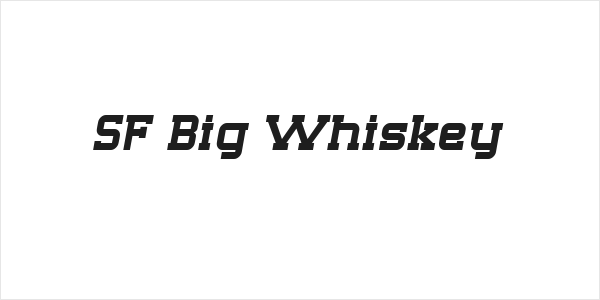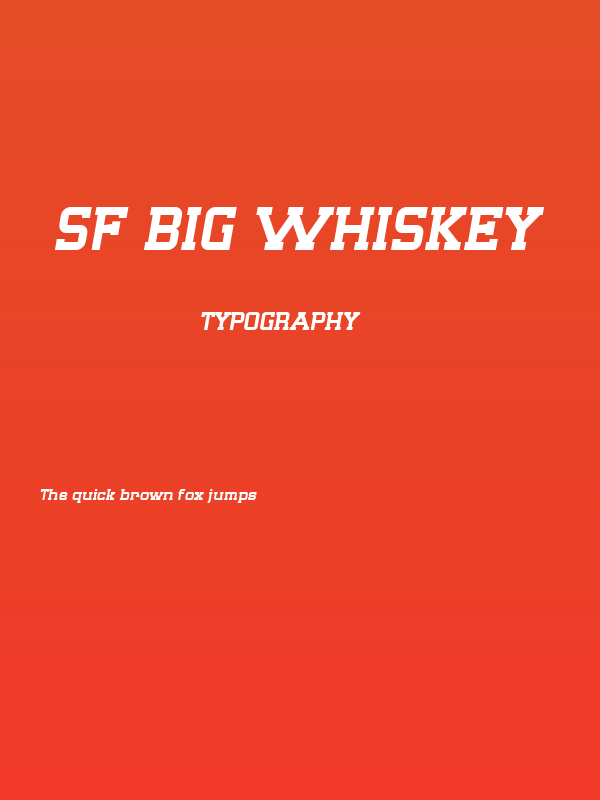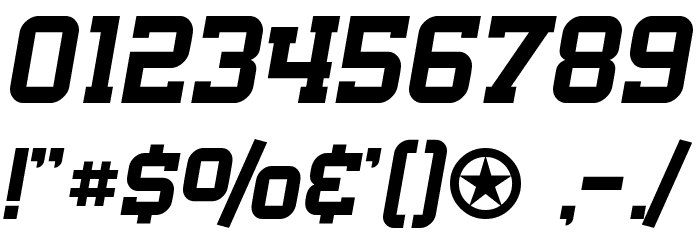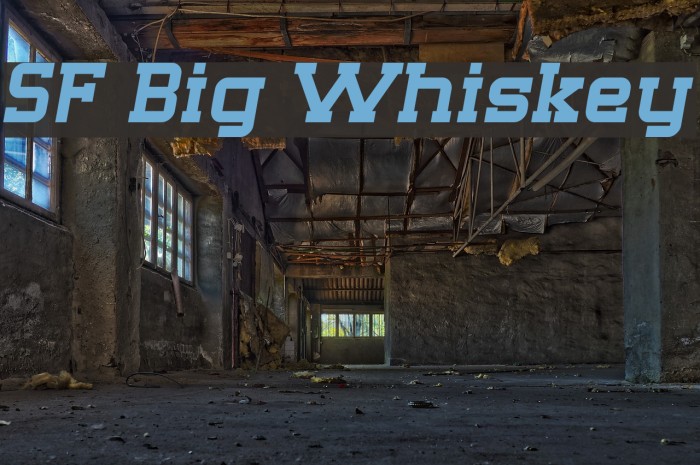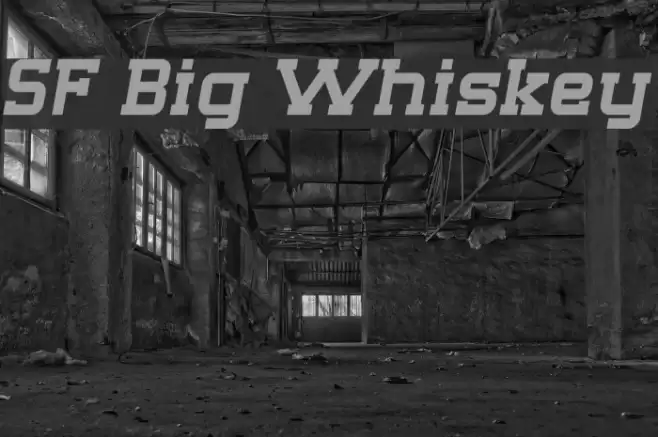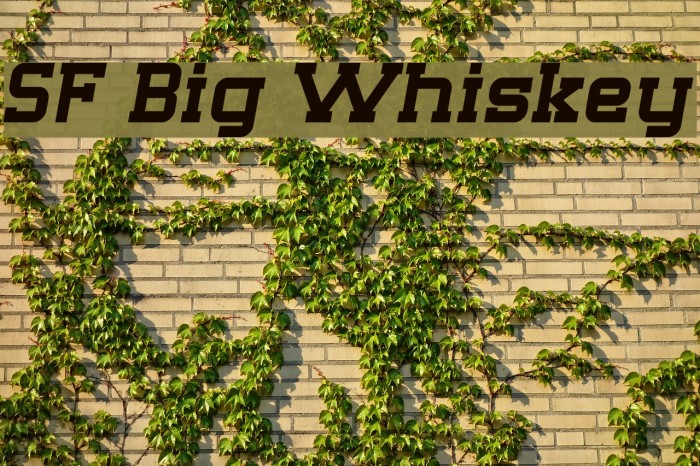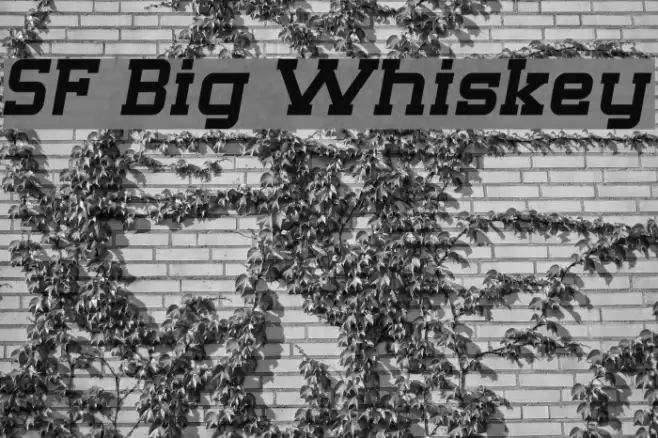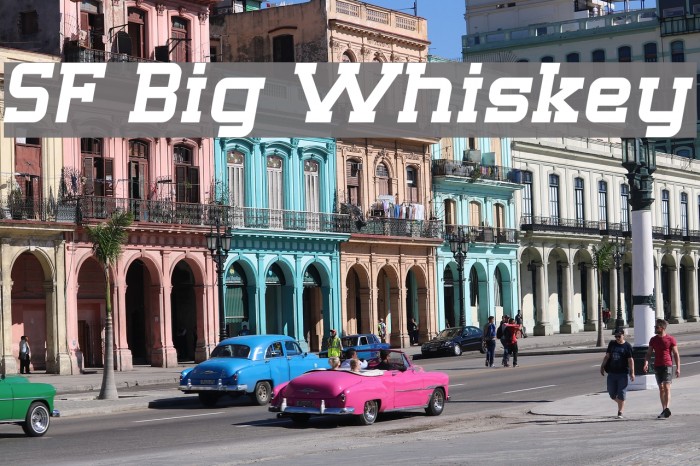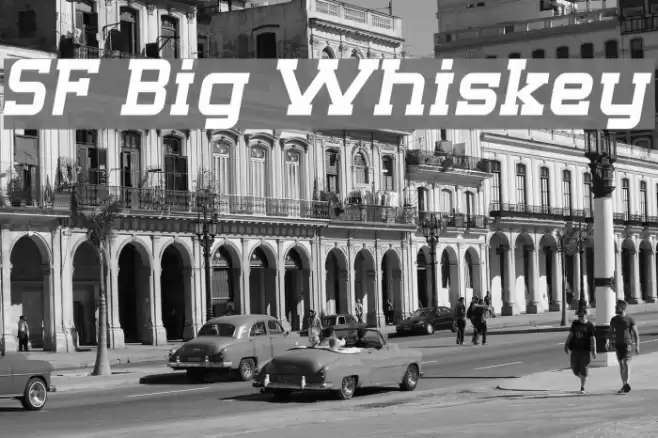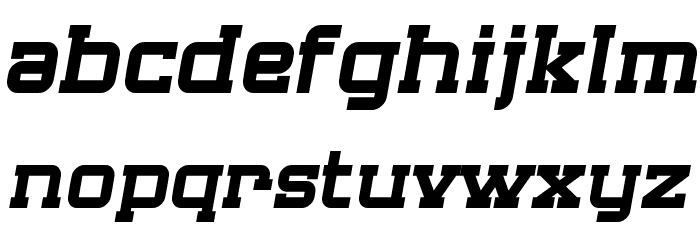
SF Big Whiskey Font
SF Big Whiskey Description
This font features a bold and dynamic design with a strong presence. The characters are slightly slanted, giving a sense of movement and energy. The uppercase letters are robust and angular, while the lowercase letters maintain a consistent style with slightly softer edges. The numbers are clear and bold, ensuring readability. Special characters are uniquely styled, adding a distinctive flair. Overall, this font combines a modern aesthetic with a touch of vintage charm, making it versatile for various design projects.
| Overall Style | Modern, Vintage |
| Proposed Projects | Ideal for branding, posters, headlines, and any design requiring a strong, impactful typeface. |